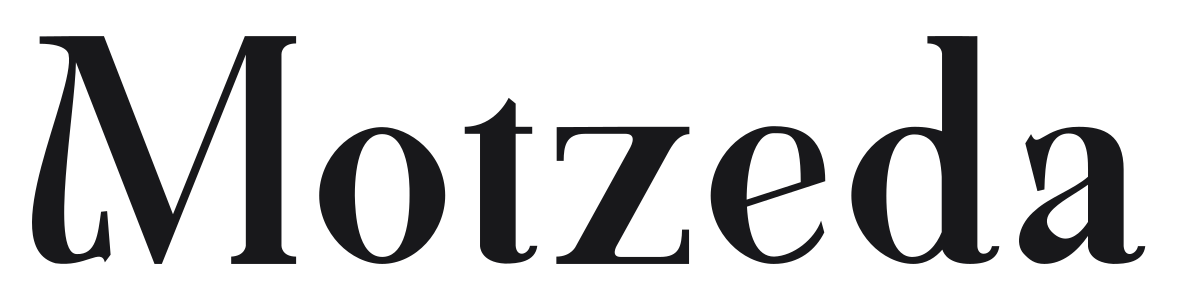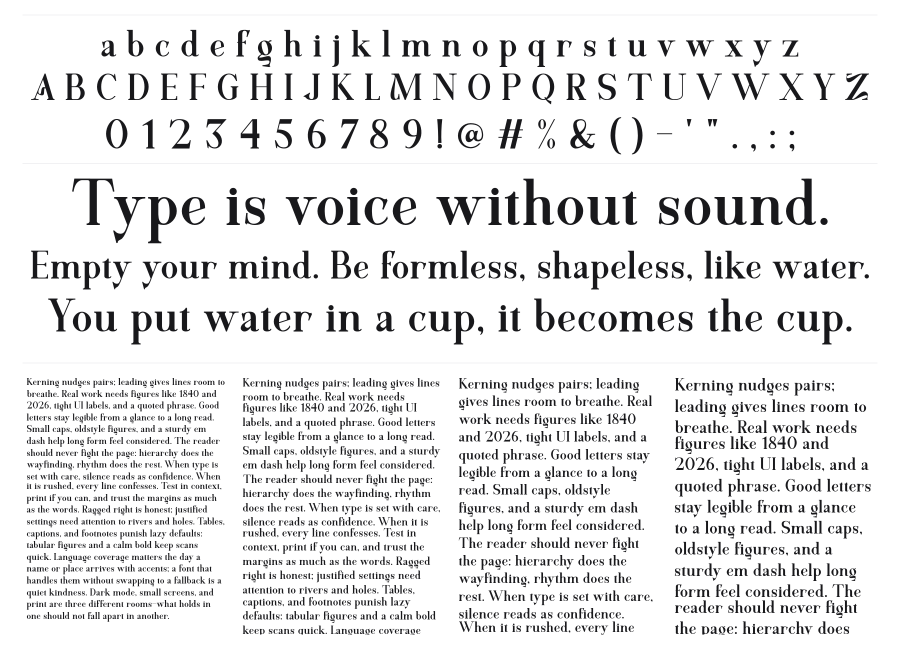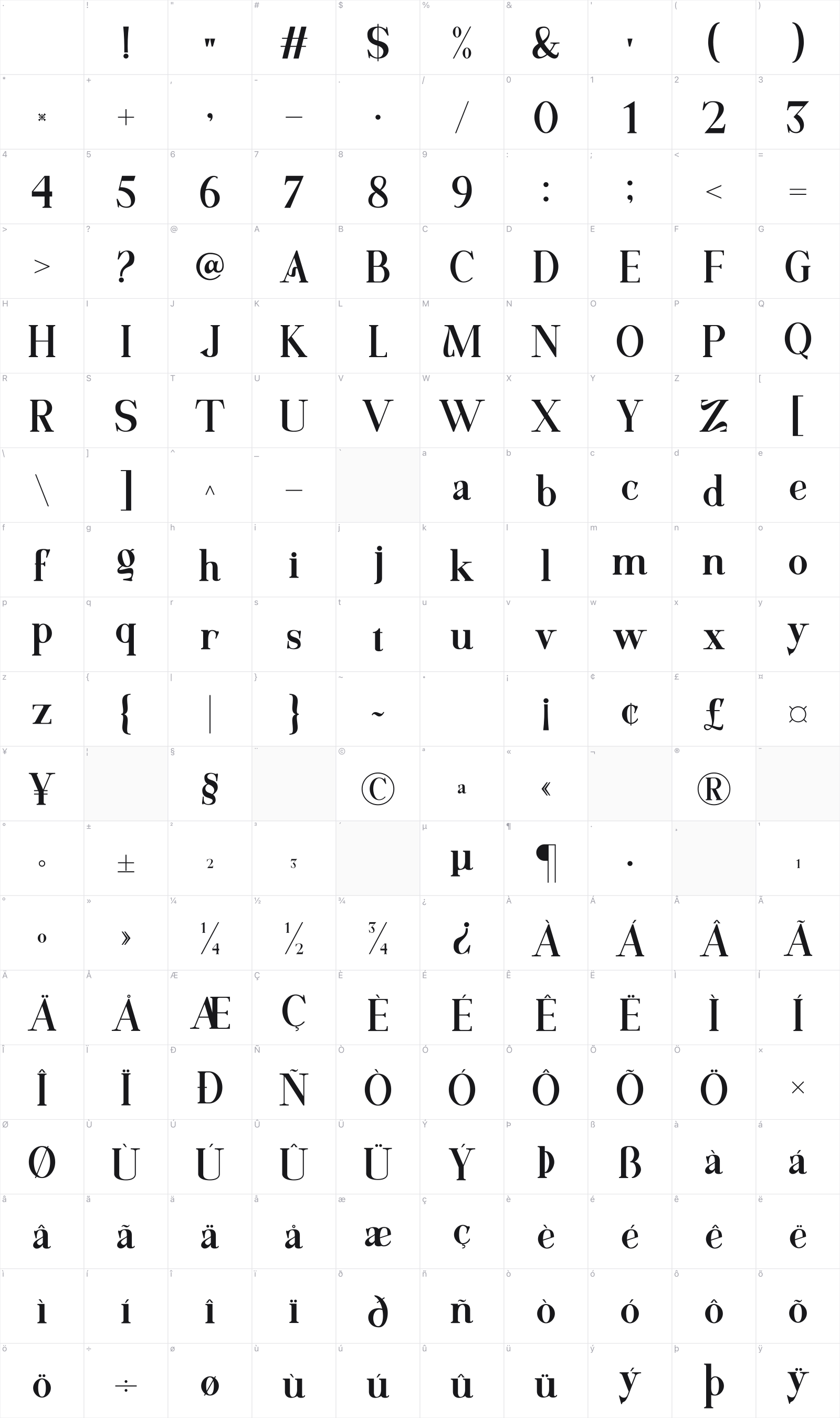
Motzeda
Motzeda is a bold didone display serif with extreme stroke contrast and the sharp, high-fashion authority of the Bodoni-Didot tradition. The heavy stems paired with near-hairline thins create a dramatic visual tension that commands attention at large sizes. A strong choice for editorial mastheads, luxury branding, and fashion-forward headline work.